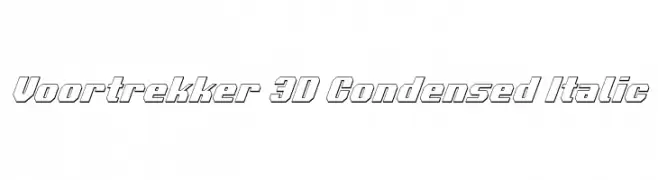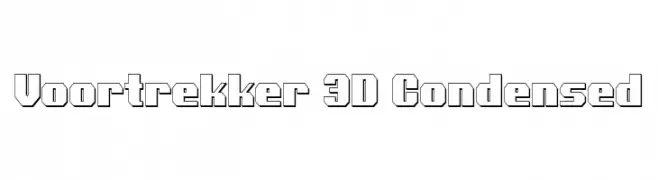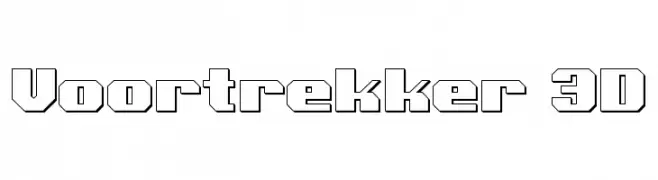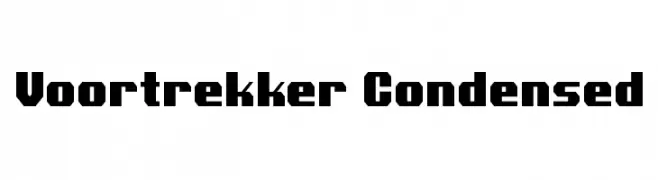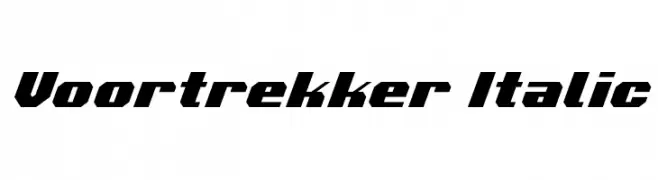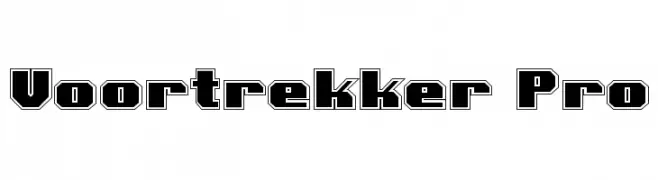
Voortrekker Italic Font
A bold, italic font with angular, geometric characters and a dynamic style.
Voortrekker Condensed Italic Font
A bold, condensed, and italicized font with sharp angles and dynamic style.
Voortrekker 3D Condensed Italic Font
A bold, 3D, condensed italic font with a futuristic outline style.
Voortrekker Pro Italic Font
A bold, italicized font with outlined characters and a dynamic, impactful style.
Voortrekker 3D Italic Font
A bold, 3D italic font with outlined, geometric characters.
Voortrekker Pro Font
A bold, geometric font with blocky, outlined characters.
Voortrekker Font
A bold, geometric font with angular, blocky characters.
Voortrekker Condensed Font
A bold, condensed, and geometric font with a strong industrial feel.
Voortrekker 3D Font
A bold, 3D block font with geometric outlines and a cohesive, structured design.
Voortrekker 3D Condensed Font
A bold, 3D, condensed font with a modern, geometric style.